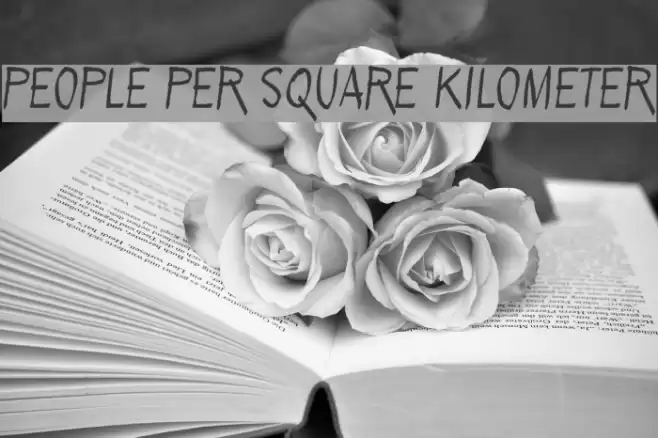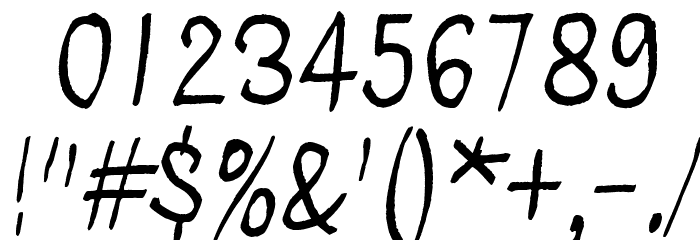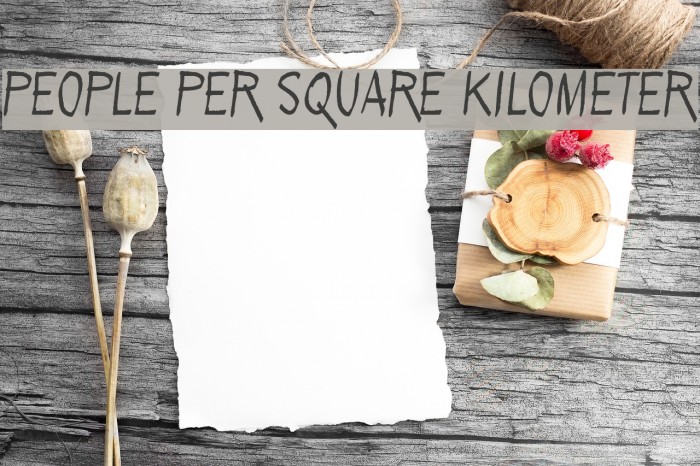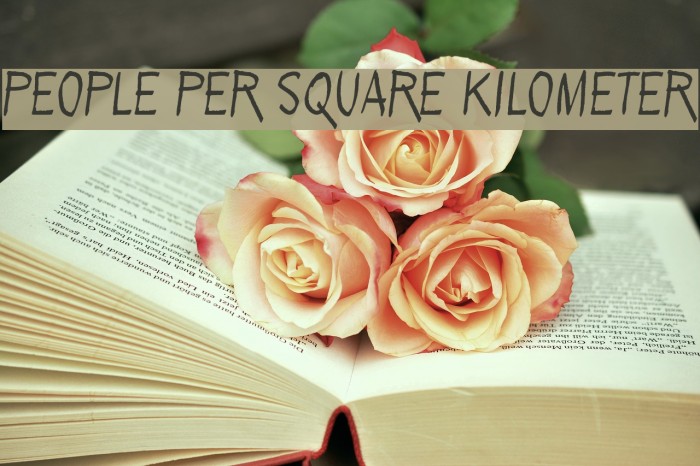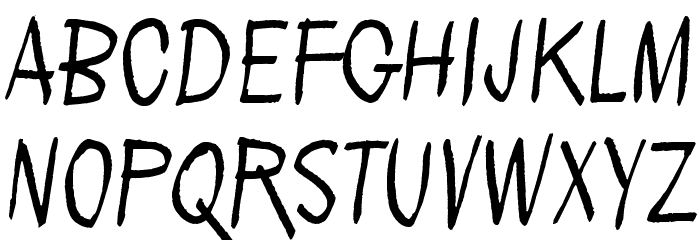
People per square kilometer Font
People per square kilometer Description
This font exhibits a handwritten style with a casual and informal appearance. The characters are slightly slanted, giving them a dynamic and lively feel. The strokes are uneven, mimicking the natural flow of handwriting, which adds a personal touch to the text. The uppercase and lowercase letters maintain a consistent style, with rounded edges and varying stroke widths that enhance the handwritten effect. The numerals and special characters follow the same design principles, ensuring uniformity across all glyphs. This font is suitable for projects that require a personal or creative touch, such as invitations, greeting cards, or artistic posters.
A casual handwritten font with dynamic, slanted characters and uneven strokes from Handwritten fonts.
- Proposed Projects: Ideal for invitations, greeting cards, artistic posters, and creative projects.
- Overall Style: Casual
- Use Case: Creative projects, personal notes, artistic designs.